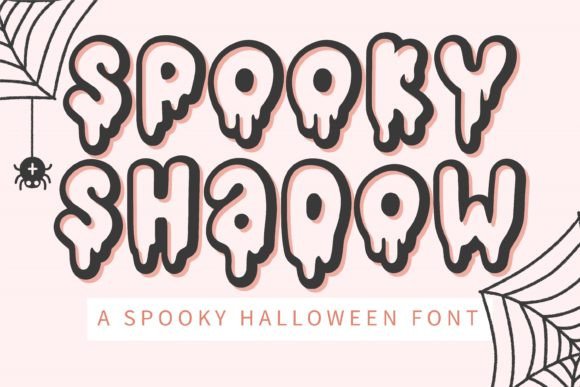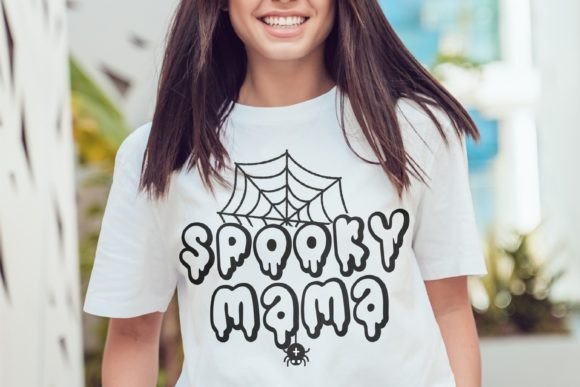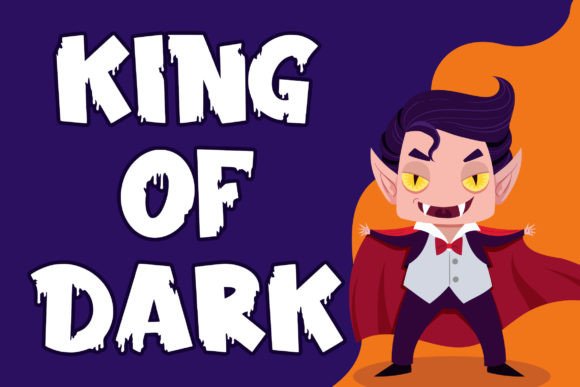
21 Best Halloween Fonts for Cricut & POD (2026 Commercial Use)
Halloween is unofficially the second Christmas for creative entrepreneurs, Cricut crafters, and Print-on-Demand (POD) sellers. While October seems far away, the spooky season planning starts now. Crafters on Etsy and Amazon are already hunting for the perfect typography to scale their sales.
If you want your apparel, home decor, or digital SVG designs to stand out in a crowded marketplace, standard system fonts won’t cut it. While you can always explore our ultimate guide to the best Cricut Fonts for everyday crafting, the spooky season demands something much more specific. You need distinctive, eye-catching typography with proper commercial licensing so you can sell your physical or digital products legally and worry-free.
1. Dripping & Horror Fonts (For Edgy & Classic Vibes)
Perfect for classic horror movie t-shirts, oversized streetwear hoodies, and bold graphic prints that require an instant scare factor.
These fonts deliver maximum shock value with authentic dripping, melting, and bleeding effects that make designs impossible to ignore.
1. Spooky Shadow (by BitongType)
- What It Is Used For: Best for edgy coloring book covers, Halloween t-shirts, and Cricut crafting.
- Key Advantages: Clean vector paths make cutting and sublimation seamless. The shadow layering effect creates instant depth without extra design work.
- Designer’s Rating: ⭐⭐⭐⭐⭐ (5/5) — It completely nails the blood-dripping aesthetic. The vectors are incredibly clean, making cutting and sublimation seamless. It’s one of my top-tier Halloween fonts for high-impact merchandise.
2. Spooky Dracula (by Hatf Type)
- What It Is Used For: Classic vampire branding, eerie book covers, and party flyers.
- Key Advantages: Organic melting drips give text an authentic hand-drawn feel. Instantly recognizable vampire aesthetic with zero extra illustration needed.
- Designer’s Rating: ⭐⭐⭐⭐⭐ (5/5) — This font carries a fantastic, mysterious retro vibe. The organic melting drips give text an authentic hand-drawn feel, making it one of the most versatile Halloween fonts for spooky, nostalgic layouts.
3. Ivorm (by Maulana Creative)
- Best Used For: Movie titles, game logos, and heavy-metal merchandise.
- Designer’s Take: Pure, unadulterated horror. The heavy, thick strokes and gooey slime details pack massive visual shock value. It’s my absolute go-to when looking for bold Halloween Fonts that need to look aggressively dark and visceral.
4. Bloody Horror
- What It Is Used For: Perfect for indie-slasher book covers, gritty streetwear, clothing lines, and edgy Halloween party posters.
5. Spooky Dungeon
- What It Is Used For: Perfect for heavy horror display headers, aggressive streetwear apparel lines, custom grunge stickers, and high-impact Halloween marketing posters.
- Key Advantages: Offers raw, heavy lines and a dramatic bleeding effect. It guarantees incredible readability even when printed on textured fabrics or distressed materials.
2. Witchy & Mystical Aesthetics (For Spiritual & Celestial Brands)
If your target audience loves tarot, astrology, or celestial aesthetics, these delicate yet eerie fonts are ideal for craft labels (candles, “potions”, wax melts) and aesthetic stickers.
They balance enchantment with darkness — perfect for brands that live in the mystical space between spooky and spiritual.
6. Witch Mystery
- What It Is Used For: Perfect for KDP coloring book covers, spellbook-style headers, mysterious social media graphics, and mystical stickers.
- Key Advantages: PUA encoded for effortless glyph access. Its whimsical yet spooky display style pops instantly in small digital thumbnails.
- Designer’s Rating: ⭐⭐⭐⭐⭐ (5/5) — One of the best Halloween fonts for creators who want an enchanting, bold look without aggressive horror lines.